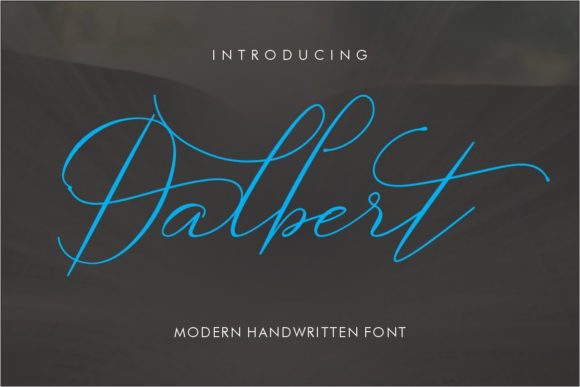
Welcome to the enchanting world of Dalbert, a script font that will elevate your designs with its captivating charm and undeniable elegance.
Imagine your music posters adorned with Dalbert's graceful curves and whimsical flourishes, evoking a symphony of emotions with every stroke. Its delicate yet distinctive character will make your creations stand out, leaving an unforgettable impression on your audience.
Dalbert's versatility extends beyond music posters. Its romantic and lovely nature lends itself beautifully to love letters, wedding invitations, and any design that calls for a touch of sophistication and timeless charm.
With Dalbert, you'll have the power to express your creativity with confidence. Its PUA encoding ensures effortless access to all glyphs and swashes, empowering you to create designs that are as unique and captivating as your imagination.
Indulge in the exquisite beauty of Dalbert and let its enchanting essence weave its magic into your designs. It's the perfect font for adding a touch of elegance, romance, and whimsy to your creations.
Experience the transformative power of Dalbert today and elevate your designs to new heights of beauty and inspiration. Let its graceful lines and enchanting curves become the voice of your creativity, captivating hearts and igniting imaginations with every stroke.